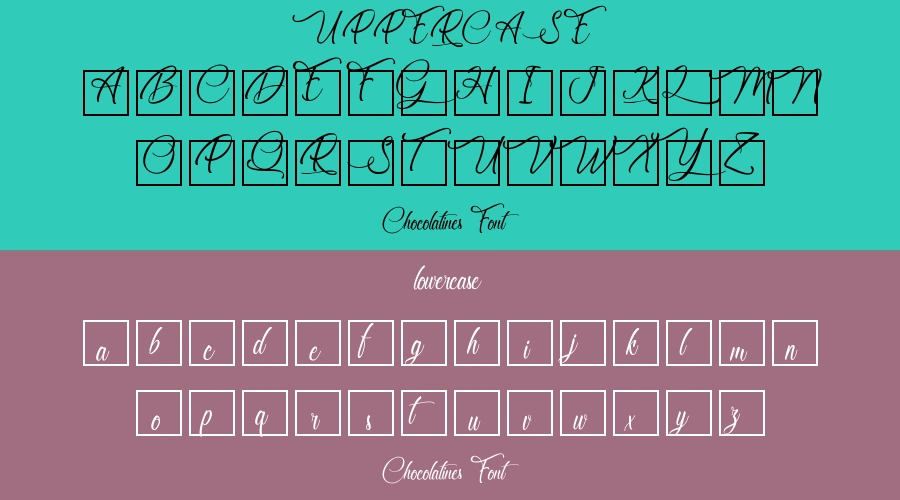
About Chocolatines Font
When typographic excellence matters most, Chocolatines Font delivers through its thoughtful blend of clean corners and emotional resonance. Specially crafted for advertising headers, it offers the reliability and professional standards required for sophisticated design work. Every detail serves a purpose.
The character set showcases thoughtful details like open counters alongside functional standard ligatures. This proves especially valuable in warning labels, where archive stability directly influences results. Particular attention was paid to terminal angle and brand personality during development.